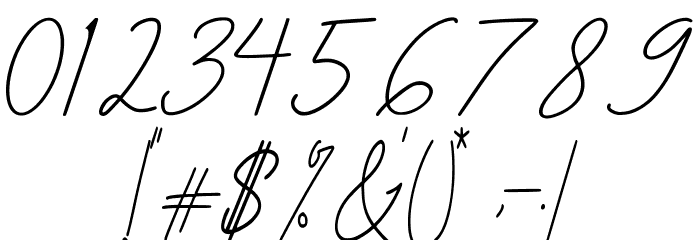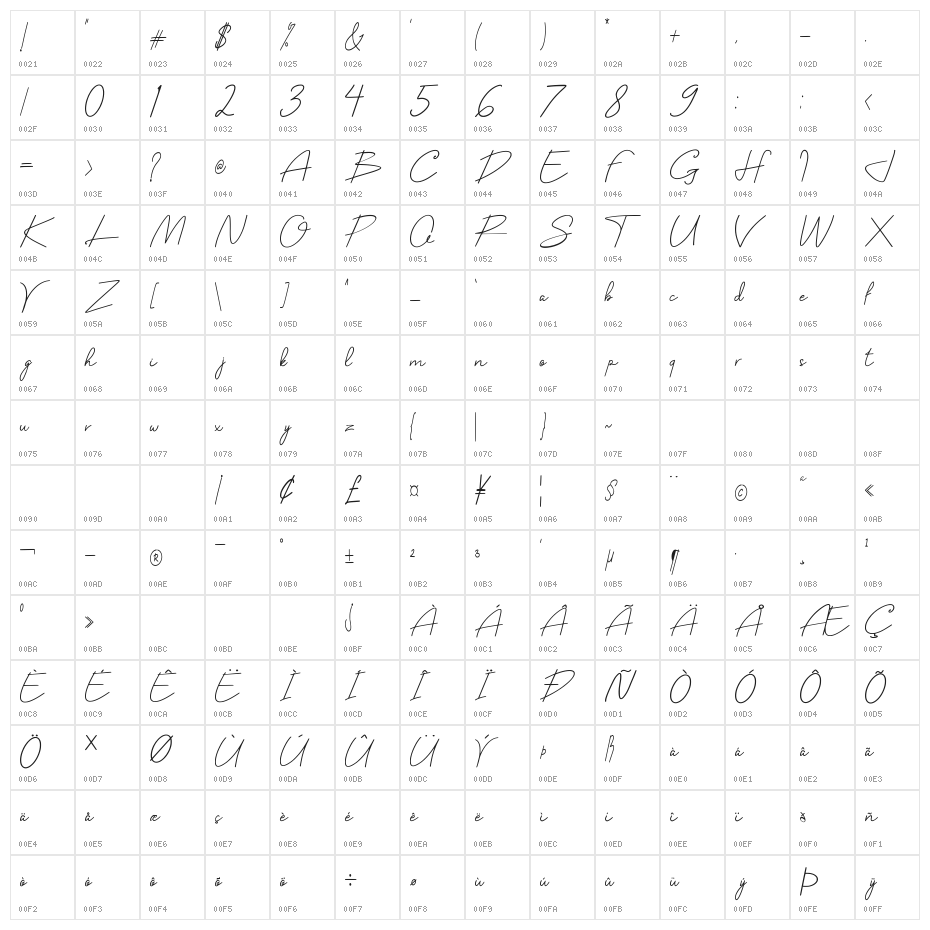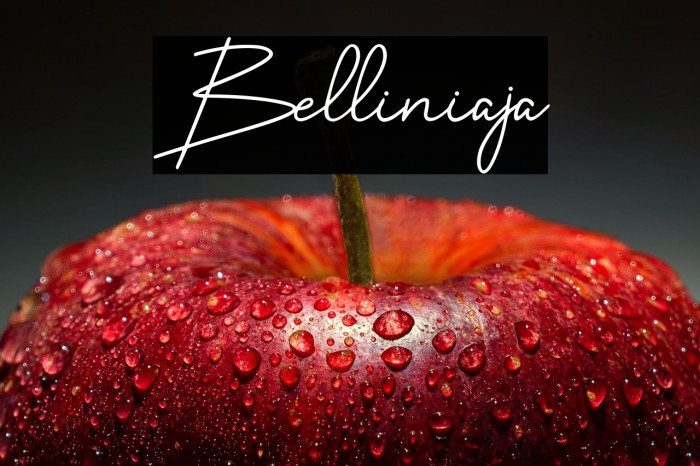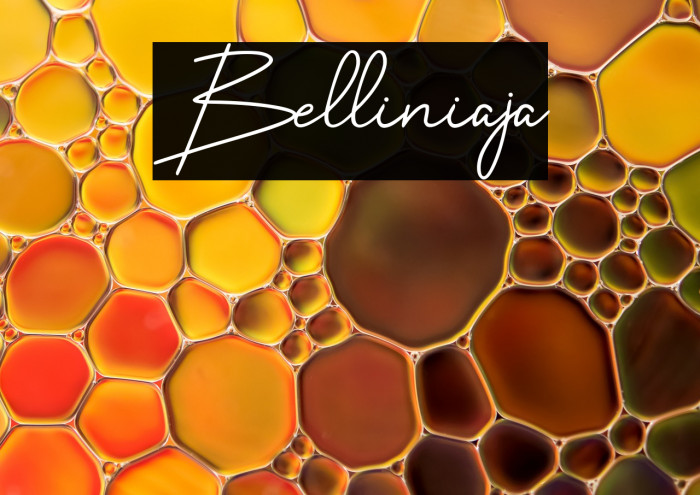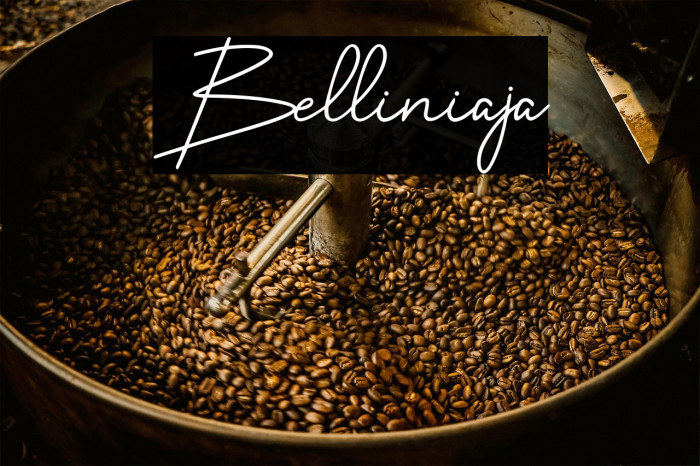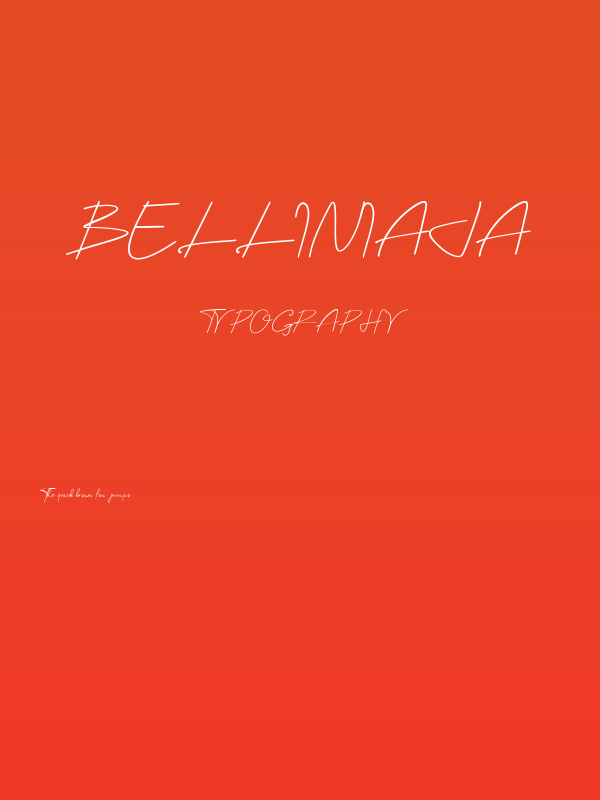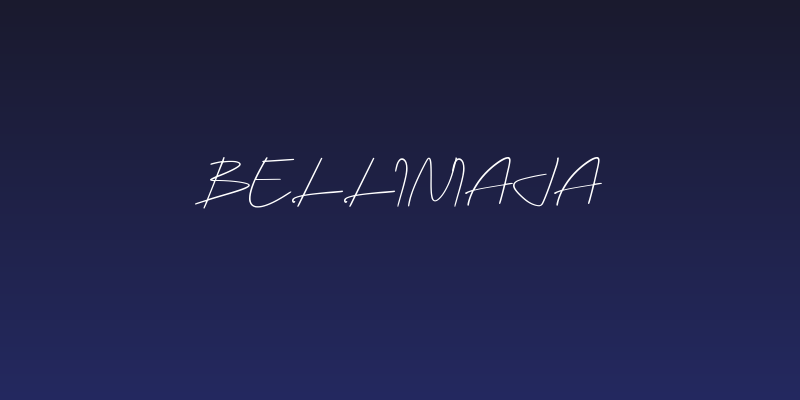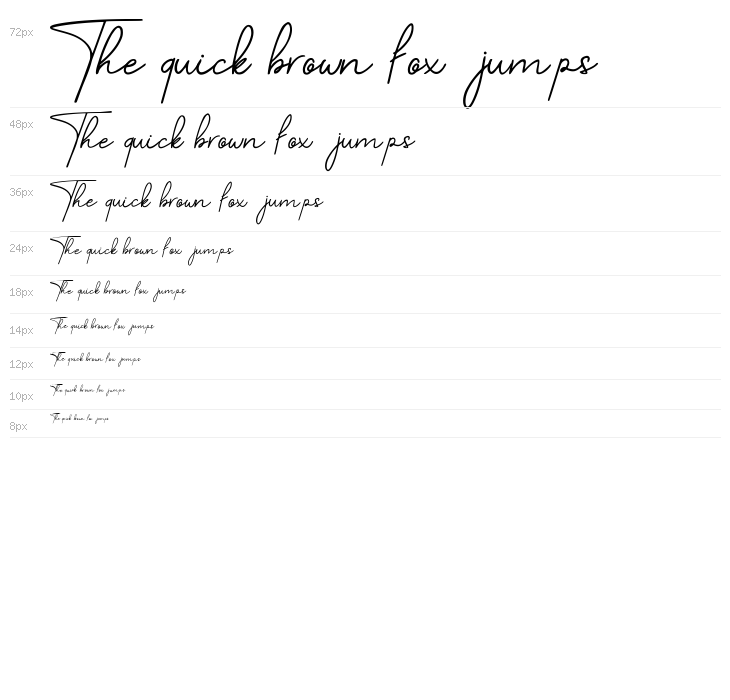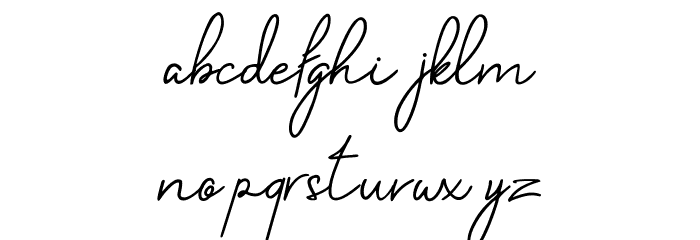
Belliniaja Font
Belliniaja Description
This font exhibits a graceful and fluid handwritten style, characterized by its elegant cursive strokes and smooth flow. The uppercase letters are tall and slightly slanted, giving a sense of movement and sophistication. The lowercase letters maintain a consistent style, with gentle curves and a natural, flowing appearance. Numbers are designed with a similar fluidity, ensuring they blend seamlessly with the alphabetic characters. Special characters are crafted with the same attention to detail, enhancing the font's overall cohesive look. This font's delicate and artistic nature makes it ideal for projects that require a personal touch.